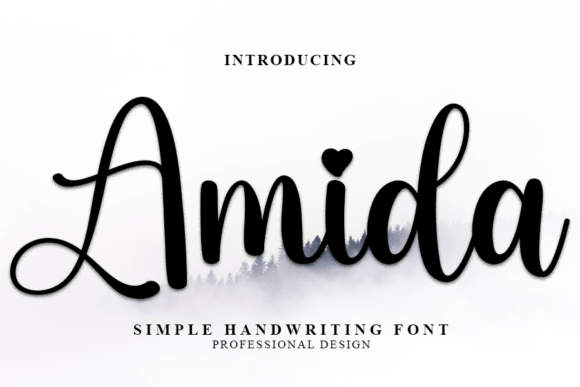
Unleash the Enchanting Charm of Amida: Script Font of Delicate Grace and Timeless Elegance
Amidst the vast digital realm of font choices, where letters come alive and stories unfold, there lies a hidden gem waiting to captivate your designs – Amida, a script font that embodies the essence of delicate grace and timeless elegance. Each character, meticulously crafted by Ade Studio, is a testament to the beauty of handwritten artistry, imbued with a charm that breathes life into your creative endeavors.
Amida is not just a font, it's an invitation to embark on a journey of artistic exploration. Its flowing strokes and refined curves invite you to dance with words, transforming them into visual masterpieces that resonate with the heart. Its gentle lines, akin to the caress of a gentle breeze, add a touch of softness and sophistication to your designs, making them irresistible to the eye.
With Amida, your words take on a life of their own, whispering tales of love, joy, and heartfelt emotions. It's the perfect choice for crafting letters that carry the warmth of your sentiments, invitations that promise a magical experience, and food product packaging that exudes an irresistible charm. Let Amida's delicate touch adorn your titles, logos, and branding, leaving an unforgettable mark on the minds of those who encounter it.
Step into the realm of creative possibilities with Amida, where beauty and elegance converge to create a symphony of visual delight. Download Amida today and unlock the enchantment that awaits within its intricately designed characters, ready to transform your designs into captivating expressions of art.